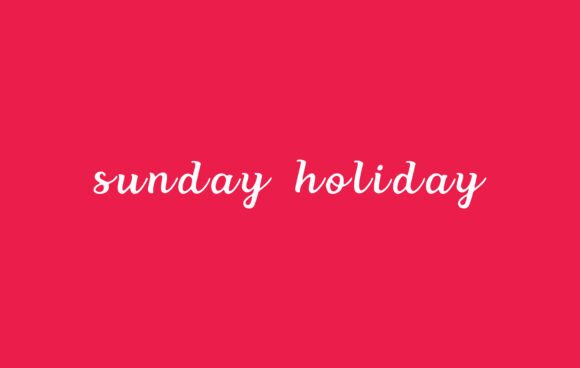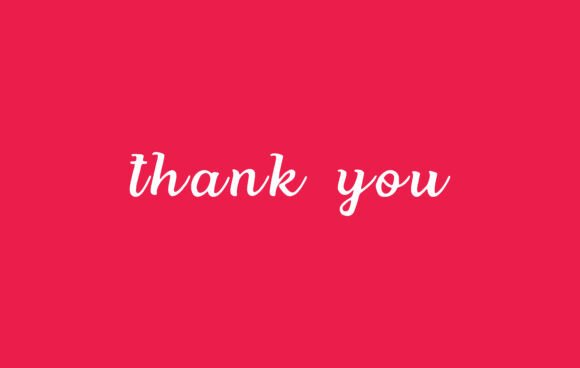
Discover the Charm of Edward Font: Elevate Your Designs with a Romantic Touch
In the world of typography, fonts play a crucial role in bringing creative ideas to life. Among the numerous fonts available, Edward font stands out as a unique and captivating choice for designers and crafters. This authentic handwritten font boasts a romantic touch, making it an excellent addition to various design projects. In this article, we’ll explore the features and benefits of Edward font, and how it can elevate your designs to new heights.
What Makes Edward Font Special?
Edward font is expertly designed to be a true favorite among designers. Its authentic handwritten style gives it a personal and intimate feel, perfect for creating a connection with your audience. The font’s romantic touch adds a touch of elegance and sophistication, making it suitable for a wide range of design applications.
One of the key advantages of Edward font is its legibility. The font is carefully crafted to be easy to read, making it perfect for both title and body text. This versatility allows designers to use Edward font in various contexts, from magazine headlines to social media posts, branding, and even wedding invitations.
Endless Design Possibilities with Edward Font
Edward font’s flexibility and charm make it an excellent choice for numerous design projects. Here are some ideas to get you started:
- Magazine Headlines: Add a touch of sophistication to your magazine covers with Edward font. Its romantic style is perfect for fashion, lifestyle, and wedding publications.
- Social Media: Elevate your social media presence with eye-catching graphics featuring Edward font. Use it to create engaging posts, stories, and ads that capture your audience’s attention.
- Branding: Establish a unique brand identity with Edward font. Its authentic handwritten style adds a personal touch to your logo, packaging, and marketing materials.
- Wedding Invitations: Make your wedding invitations truly special with Edward font. Its romantic touch sets the tone for a beautiful and memorable celebration.
- Cards and Stationery: Add a touch of elegance to your greeting cards, thank-you notes, and stationery with Edward font.
Why Choose Edward Font?
With so many fonts available, why choose Edward font? Here are a few compelling reasons:
- Unique Style: Edward font offers a distinctive and authentic handwritten style that sets it apart from other fonts.
- Legibility: The font’s careful design ensures that it’s easy to read, making it perfect for both title and body text.
- Versatility: Edward font is suitable for a wide range of design applications, from digital media to print materials.
- Elegance: The font’s romantic touch adds a touch of sophistication and elegance to any design.
Edward font is a versatile and captivating choice for designers and crafters. Its authentic handwritten style, romantic touch, and legibility make it perfect for a wide range of design projects. Whether you’re creating magazine headlines, social media graphics, branding materials, or wedding invitations, Edward font is sure to elevate your designs to new heights. Discover the charm of Edward font and bring your creative ideas to life with this beautiful and elegant font.